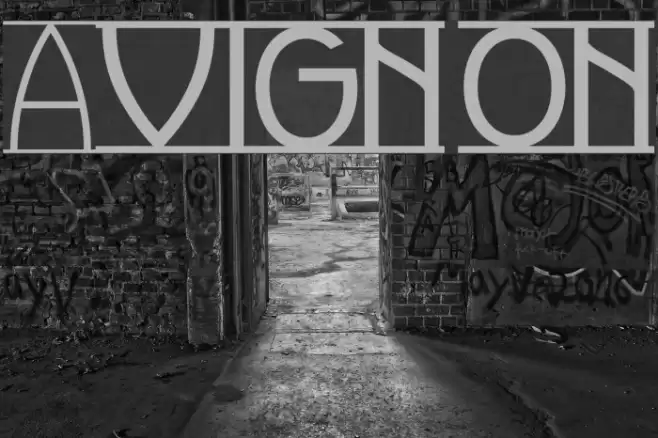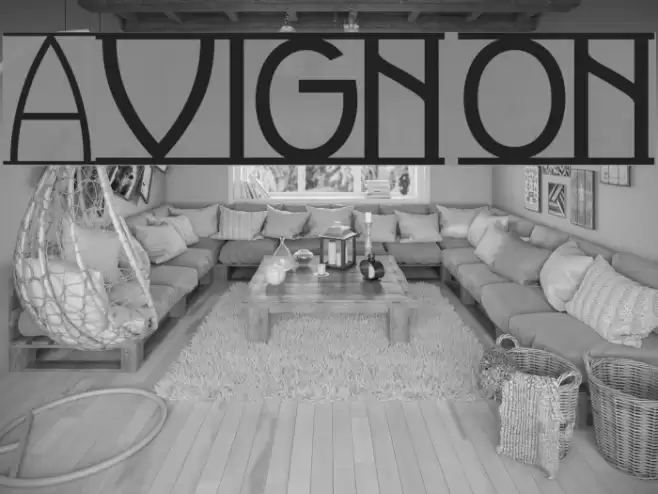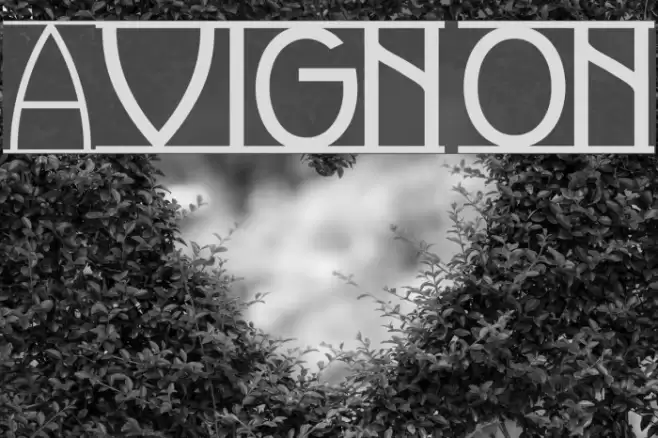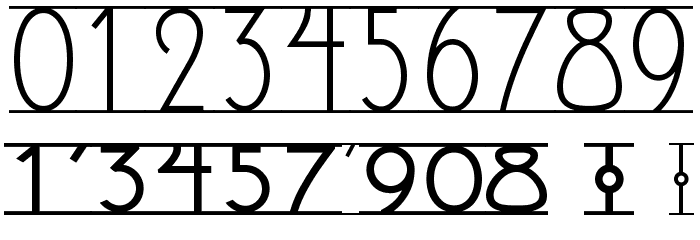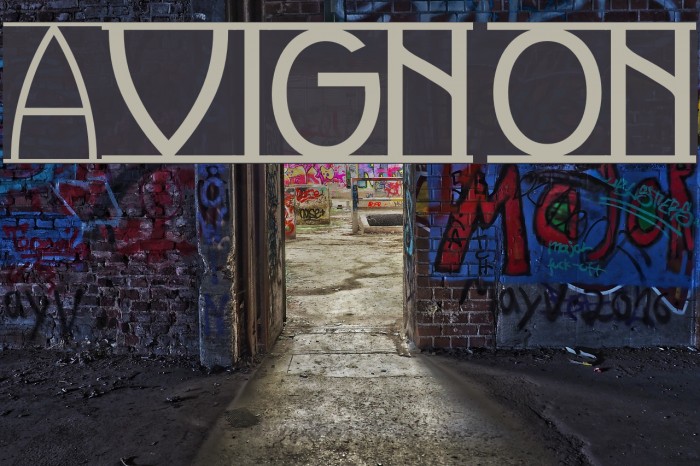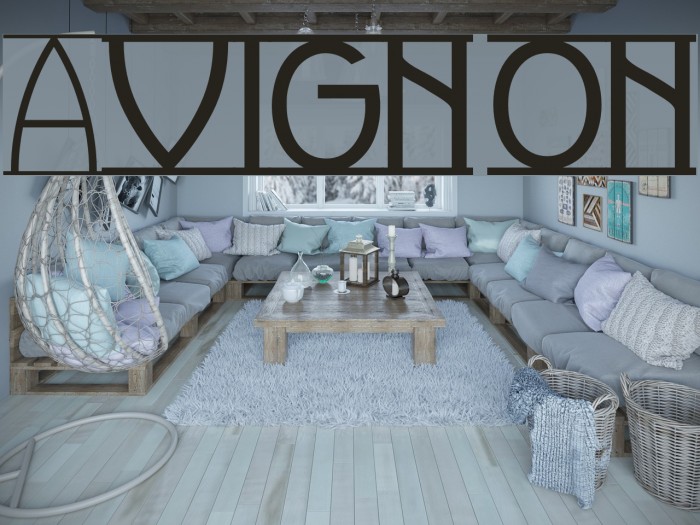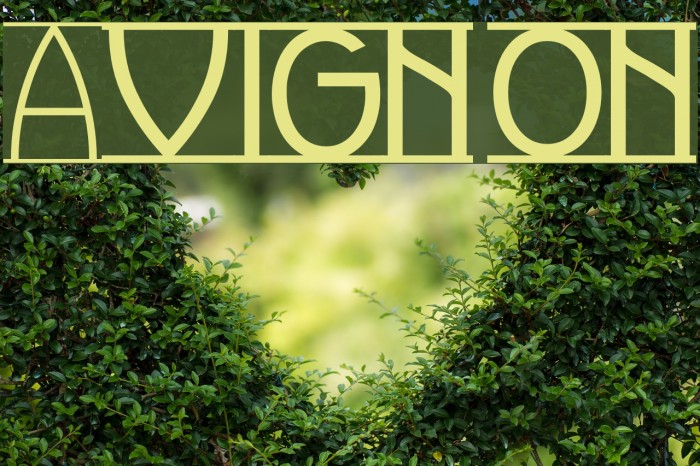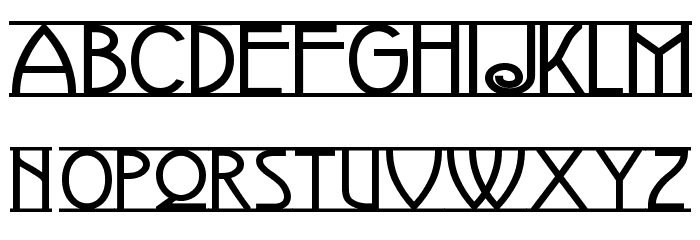
Avignon Font
Avignon Description
This font features a unique and artistic design with elongated, narrow characters that exhibit a blend of geometric and decorative elements. The uppercase letters are particularly distinctive, with some characters incorporating elegant swirls and curves, such as the letter 'G'. The overall appearance is both sophisticated and playful, making it suitable for creative and artistic projects. The numerals and special characters maintain the same stylistic approach, ensuring consistency across all glyphs.
An artistic and geometric font with decorative elements and narrow characters from Decorative fonts.
- Proposed Projects: Ideal for use in posters, invitations, branding, and any project requiring a touch of elegance and creativity.